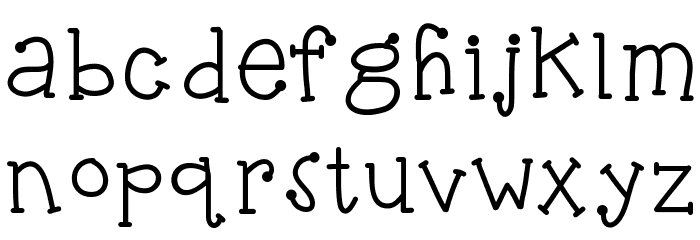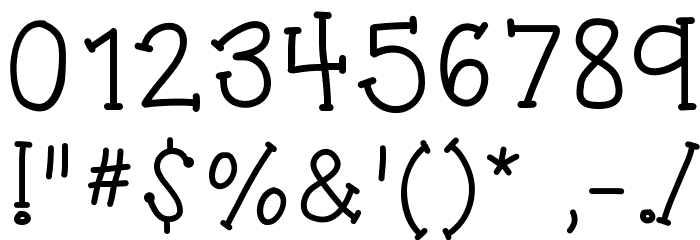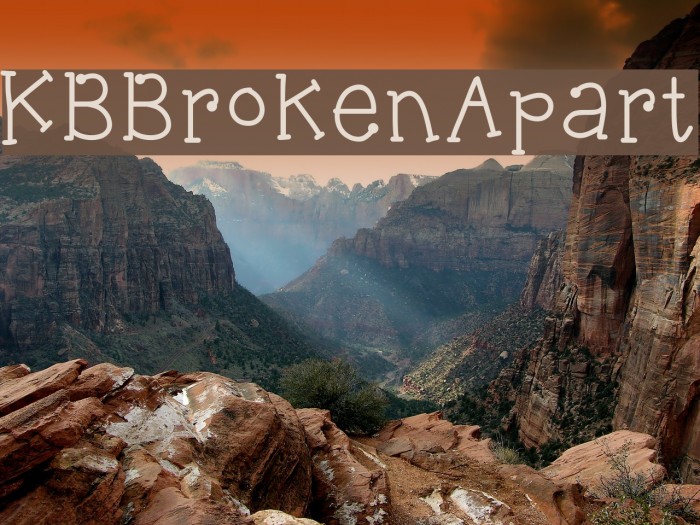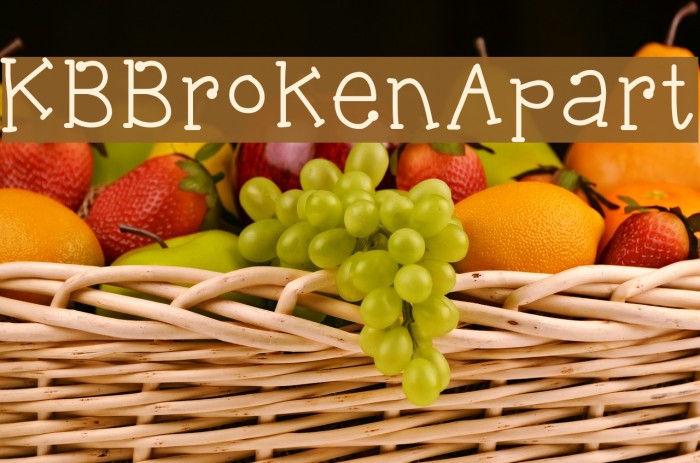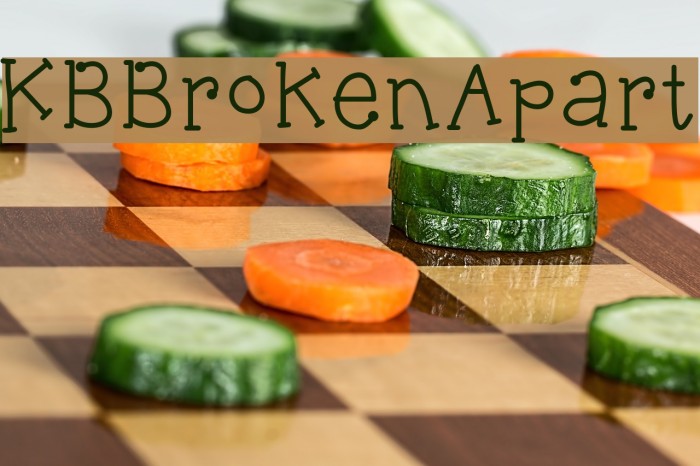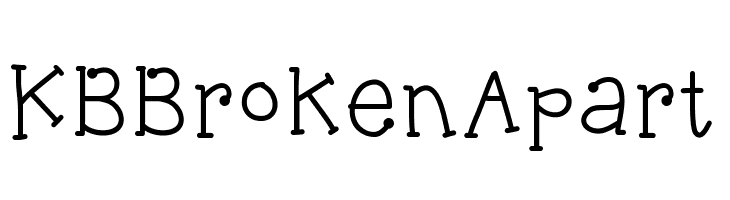
KBBrokenApart Font
This font features a playful and whimsical design with a hand-drawn aesthetic. The characters have a unique, slightly irregular shape, giving them a quirky and informal appearance. The strokes are consistent in thickness, providing a uniform look across all characters. The rounded edges and slight curls on certain letters add to its charm, making it suitable for creative and fun projects. The font maintains good legibility despite its decorative style, making it versatile for various uses. The numbers and special characters are designed to match the playful theme, ensuring a cohesive look throughout.
A playful, hand-drawn font with a whimsical and quirky style.
- Proposed Projects: Ideal for children's books, greeting cards, playful branding, and creative posters.
- Use Case: Headlines, Logos, Creative projects